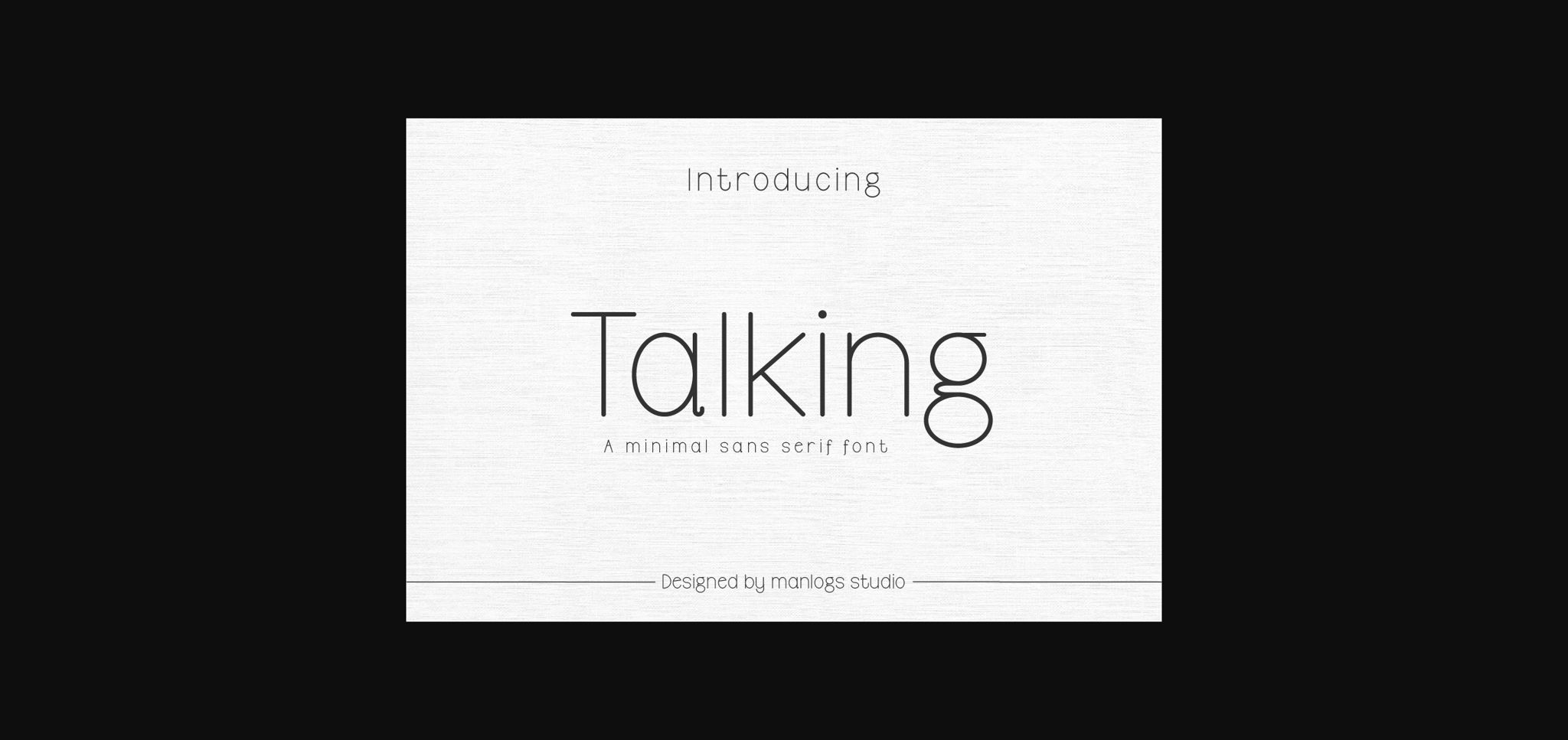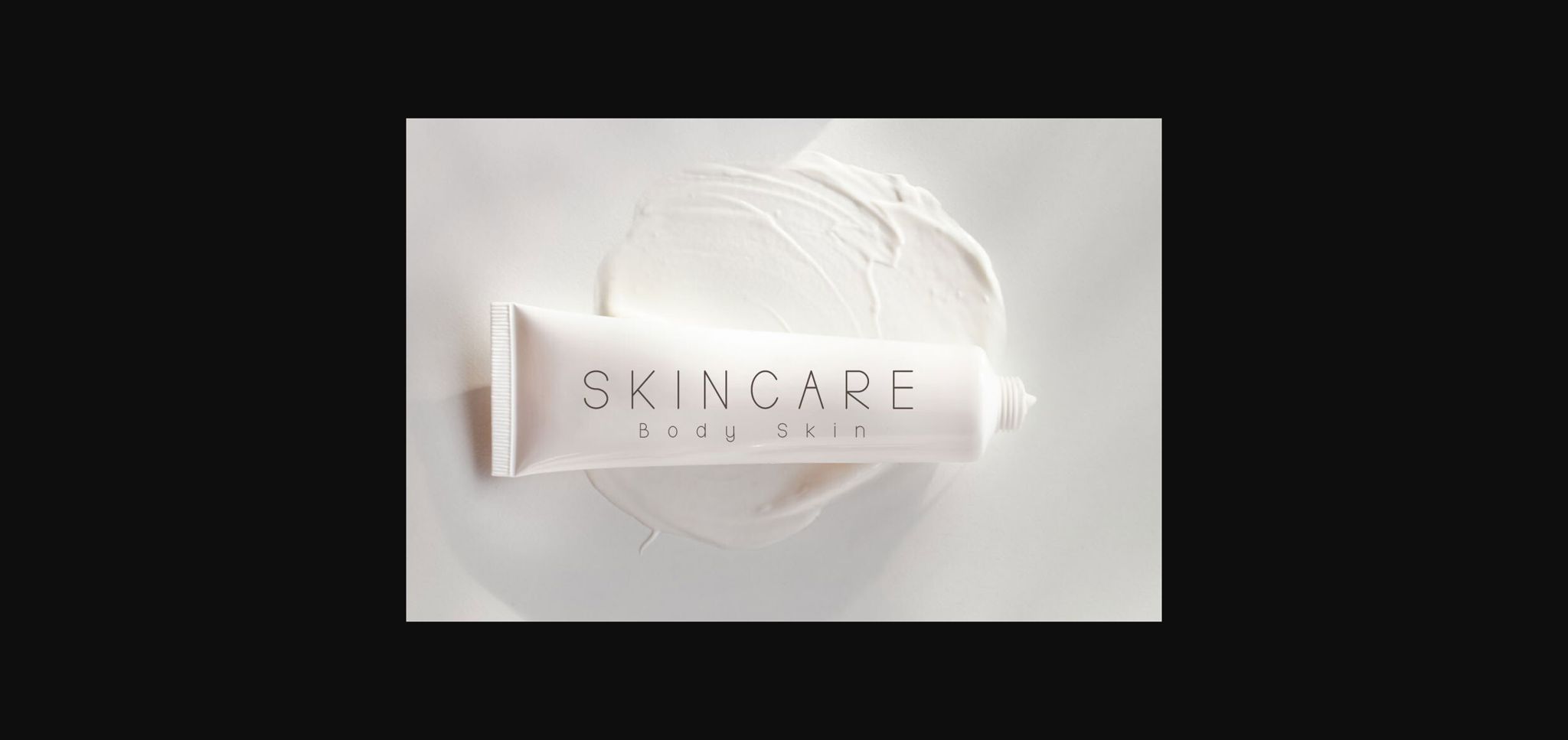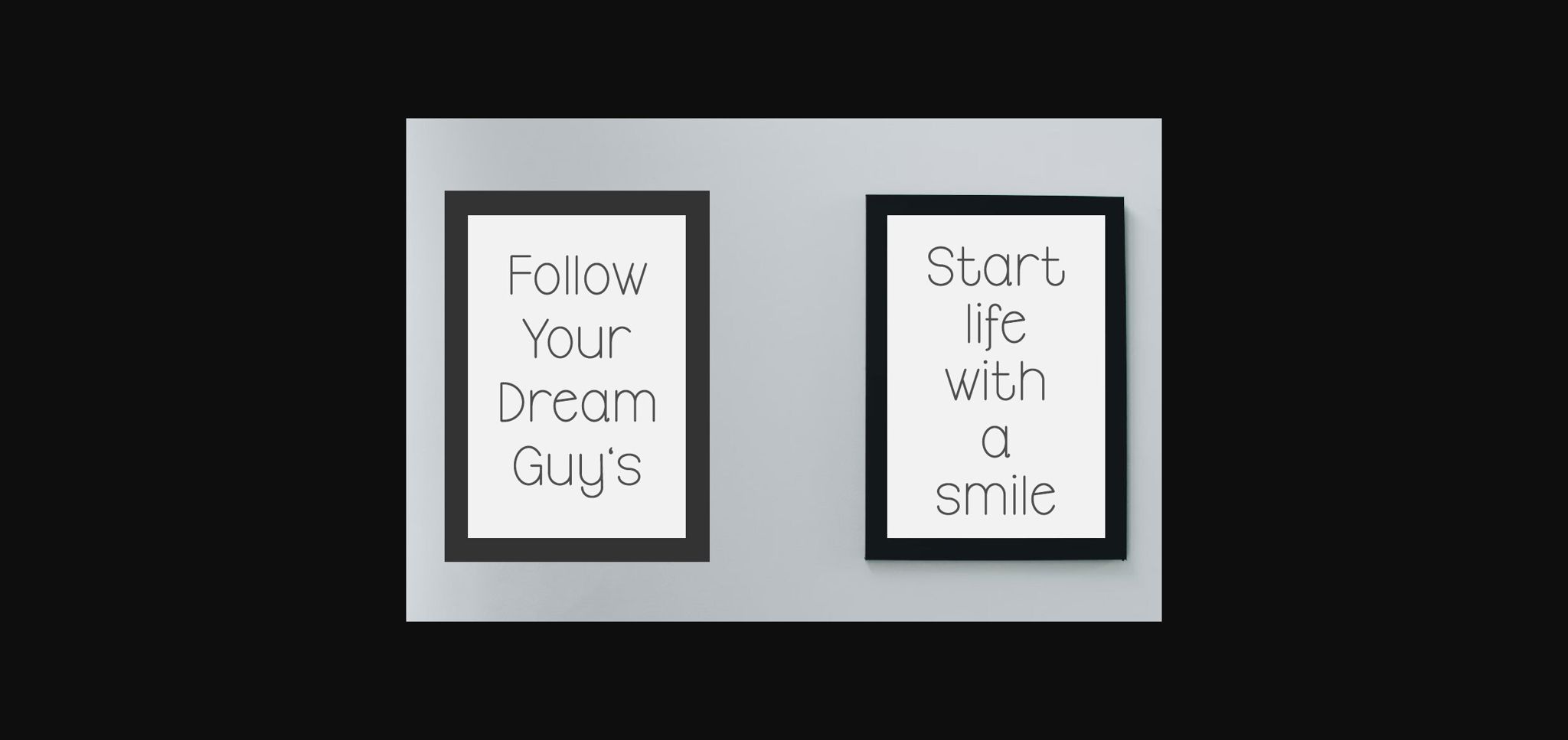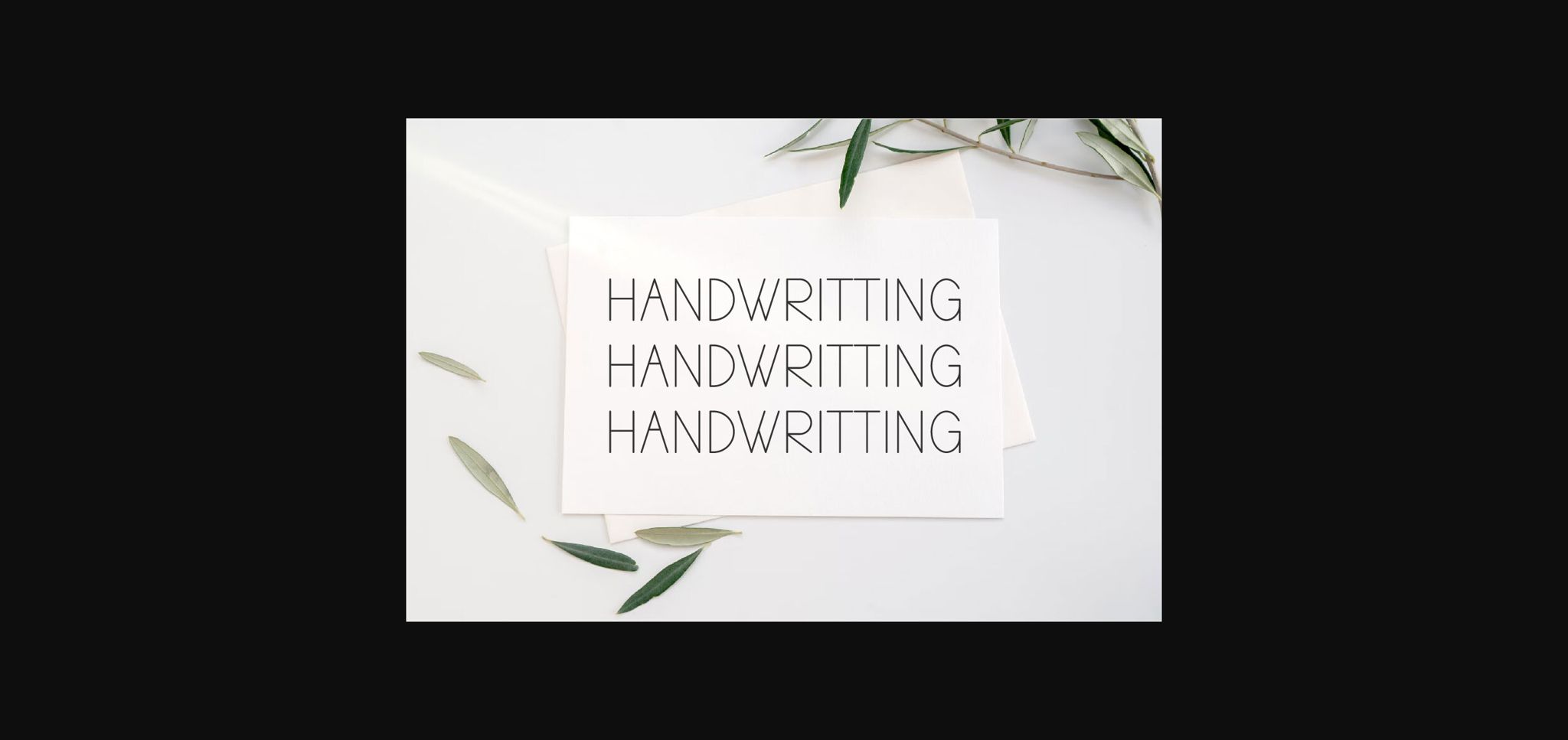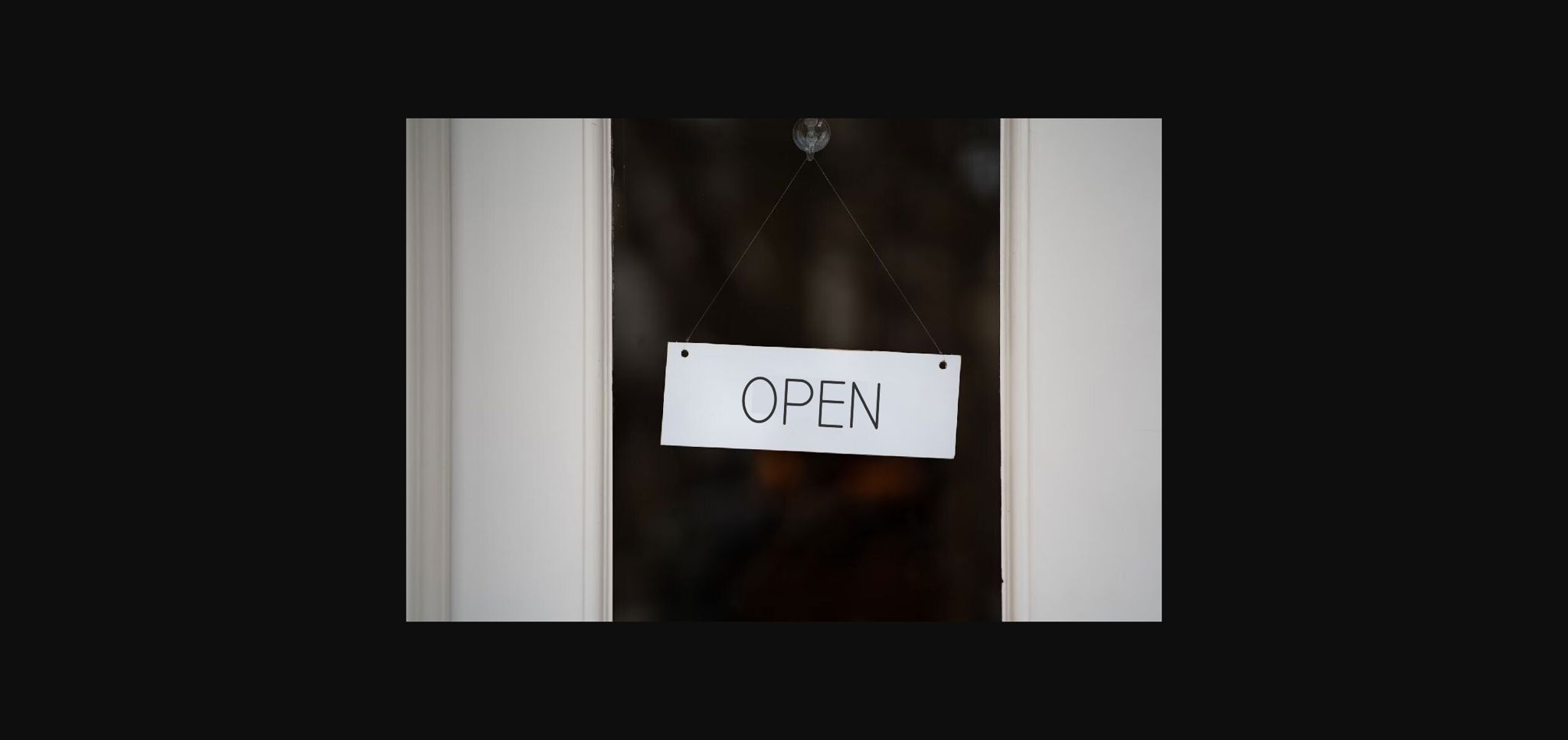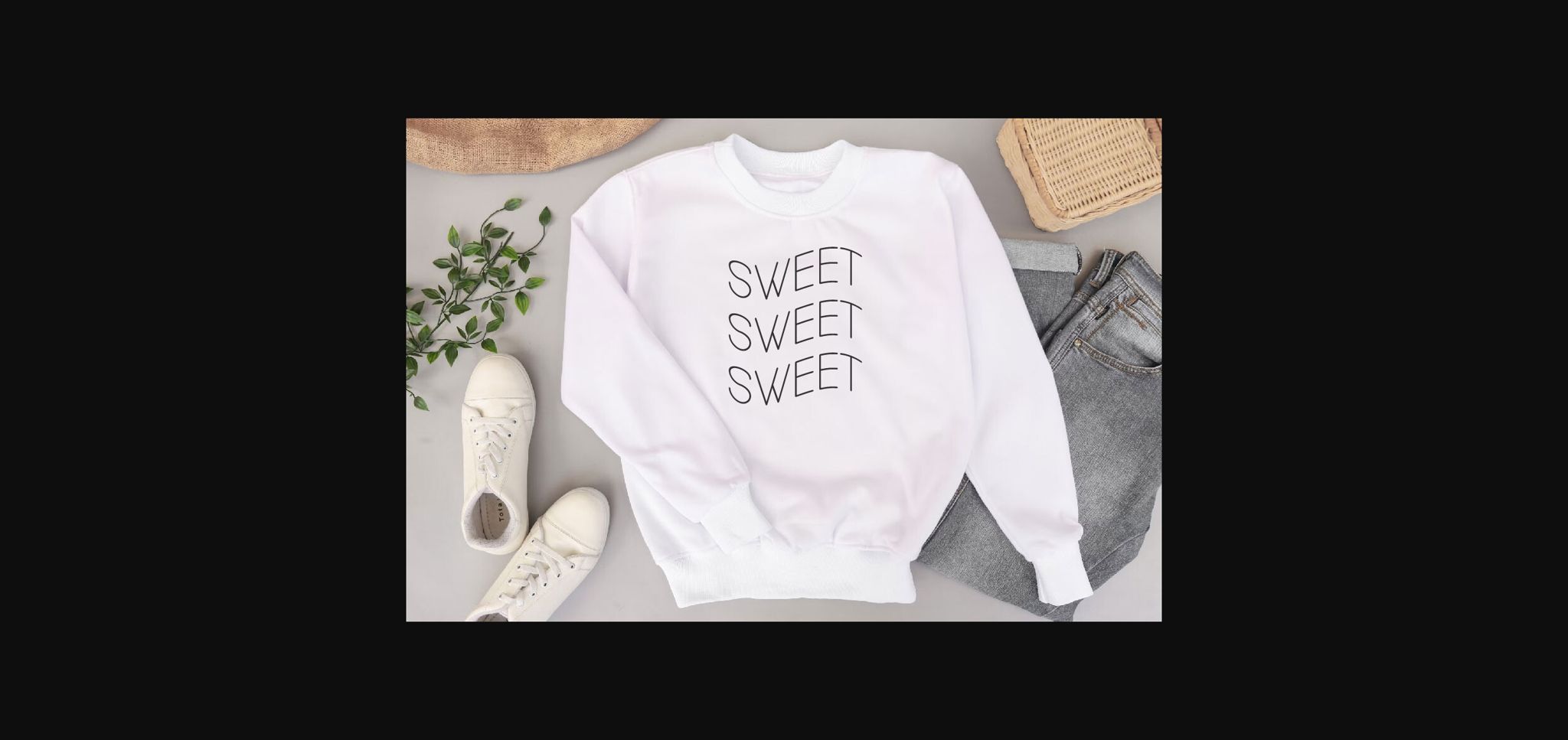
About Talking Font
Talking is a simple and minimalist sans-serif font designed for a clean retro look. With its vintage-balanced proportions, this font is perfect for creating a minimalist aesthetic.